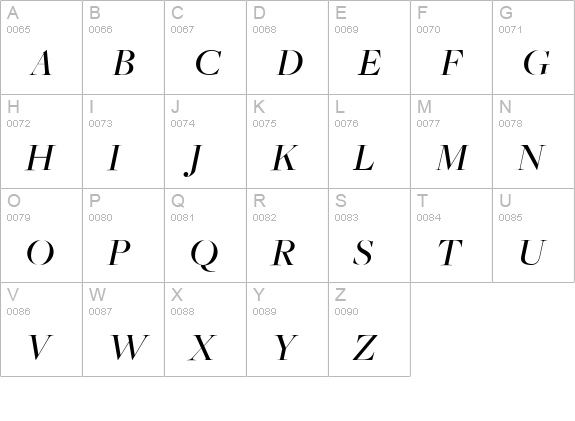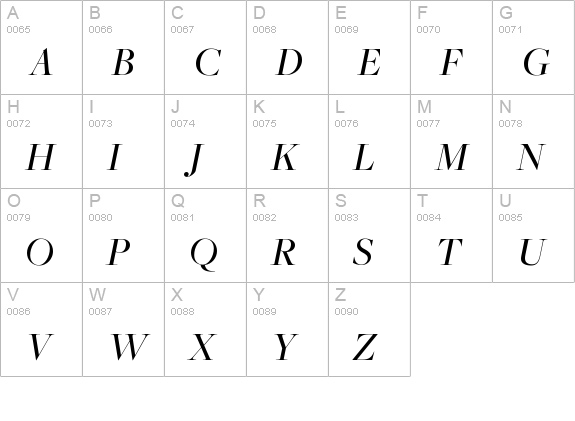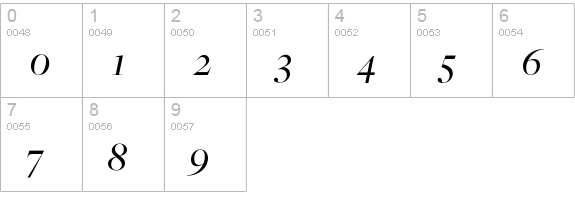
FreightBigMediumItalic Font Details
FreightBigMediumItalic is a modern and versatile font that exudes sophistication and elegance. Its sleek design and italicized style make it perfect for various design projects, from branding to editorial layouts. The bold yet refined look of FreightBigMediumItalic commands attention and adds a touch of class to any text. What makes FreightBigMediumItalic even more appealing is that it is available for free download at FontsMarket.com. This means you can access this premium font without any cost, making it a valuable addition to your font library. Whether you are a designer looking for a stylish typeface or a business owner seeking to elevate your brand's visual identity, FreightBigMediumItalic offers the perfect solution with its striking appearance and easy accessibility. Download this font today and enhance your projects with its timeless appeal.